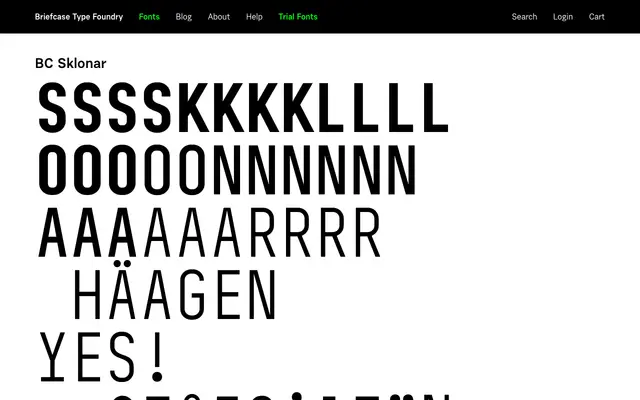
A grotesque sans from Prague-based Briefcase Type Foundry, likely drawing on Central European type traditions.
BC Sklonar is a grotesque sans from Briefcase Type Foundry, a Czech foundry with a consistent focus on Central European typographic heritage. The page provided insufficient detail to confirm weight range, language support or specific design references. Further information should be verified directly on the foundry's product page.
The name and foundry context suggest a Central European grotesque tradition; without further page content, a grotesque sans classification is the most defensible default for Briefcase Type Foundry releases of this naming pattern.